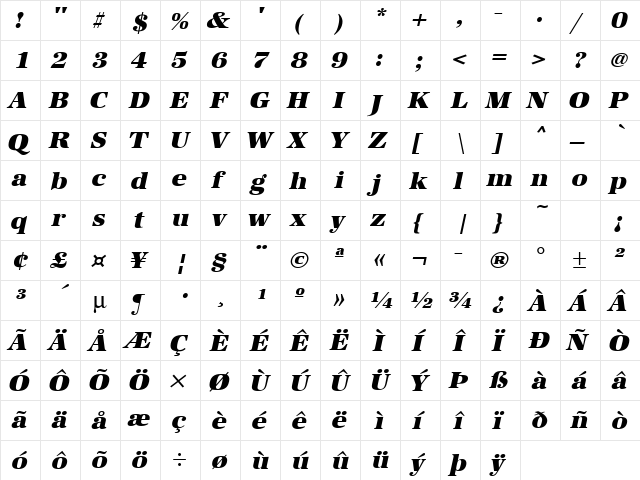
URWAntiquaTUltBolWid Oblique
Design Context for URWAntiquaTUltBolWid Typeface
URWAntiquaTUltBolWid takes a measured approach to typography — its balanced proportions and neutral character make it a reliable workhorse for both digital and print work. The slanted form adds forward momentum and visual energy.
Pro Tip: Try URWAntiquaTUltBolWid for annotation and caption copy alongside an upright companion — the contrast in angle creates a dynamic but ordered typographic system.